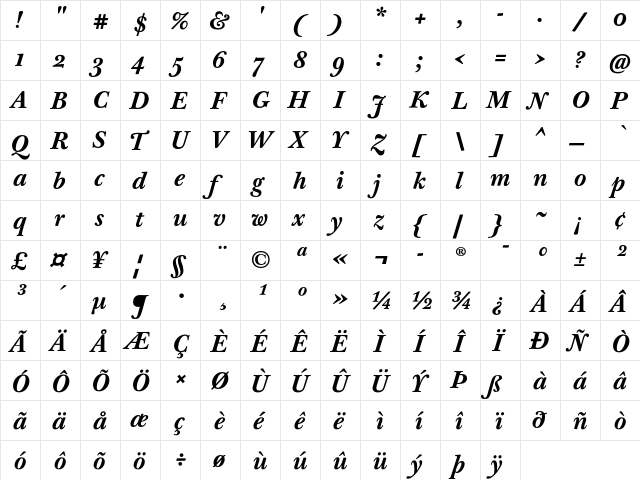
Baskerville Ten Pro Bold Italic
| Foundry | Frantisek Storm |
| Designer | Frantisek Storm |
Design Context for Baskerville Ten Pro Typeface
Baskerville Ten Pro is a composed and adaptable typeface that performs quietly and consistently across a wide range of design contexts. The slanted form adds forward momentum and visual energy. The heavy weight commands attention and anchors typographic hierarchies.
Pro Tip: Use Baskerville Ten Pro for emphasis, pull quotes, and subheadings where its slanted energy can add rhythm to the layout.